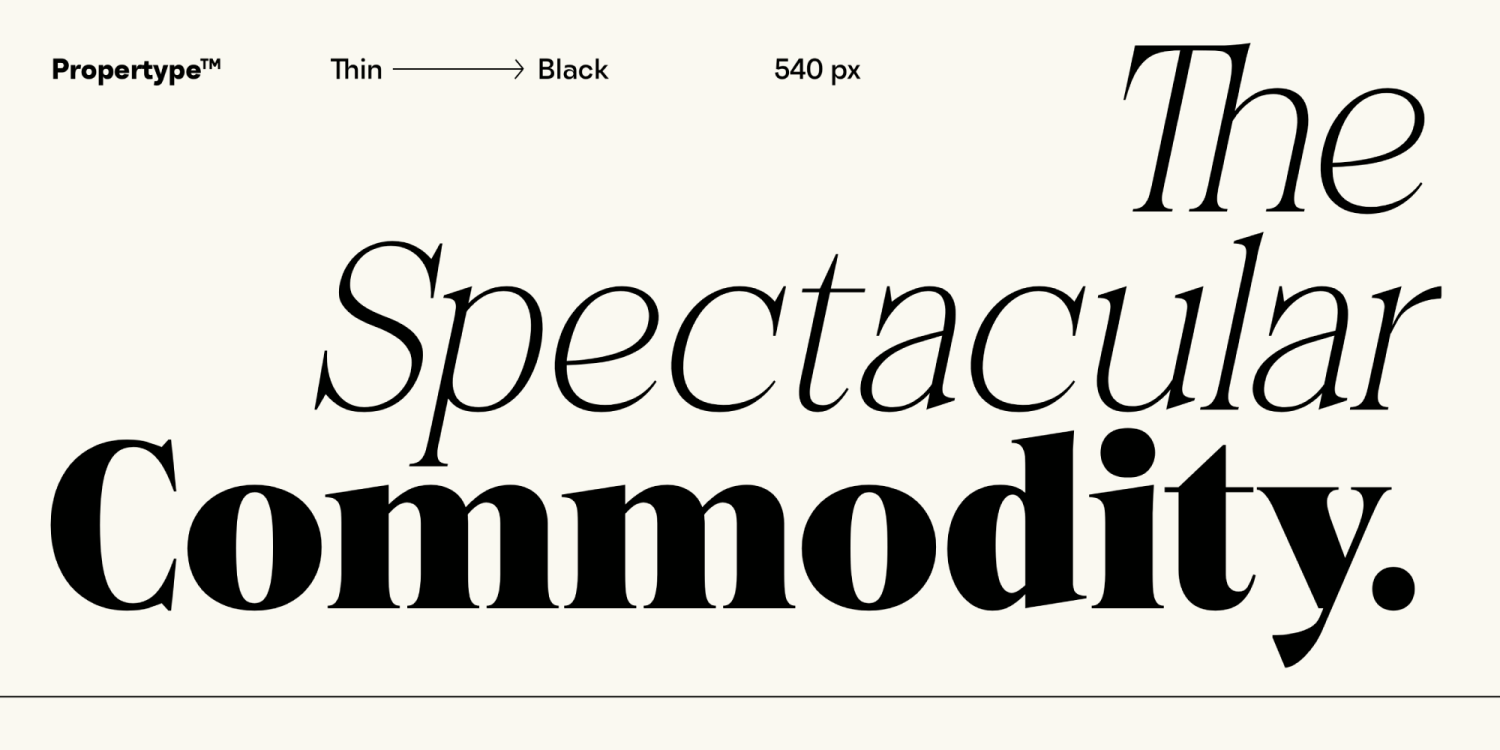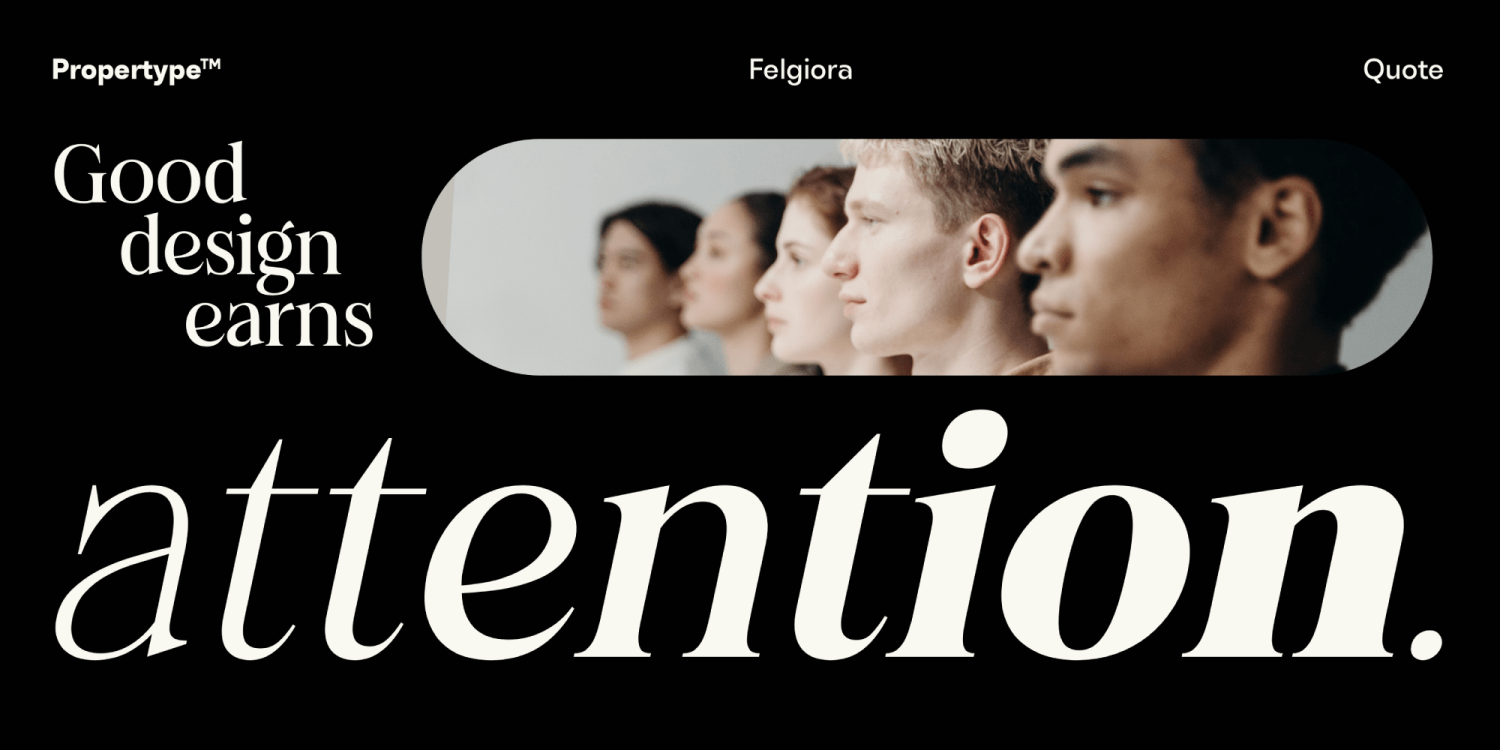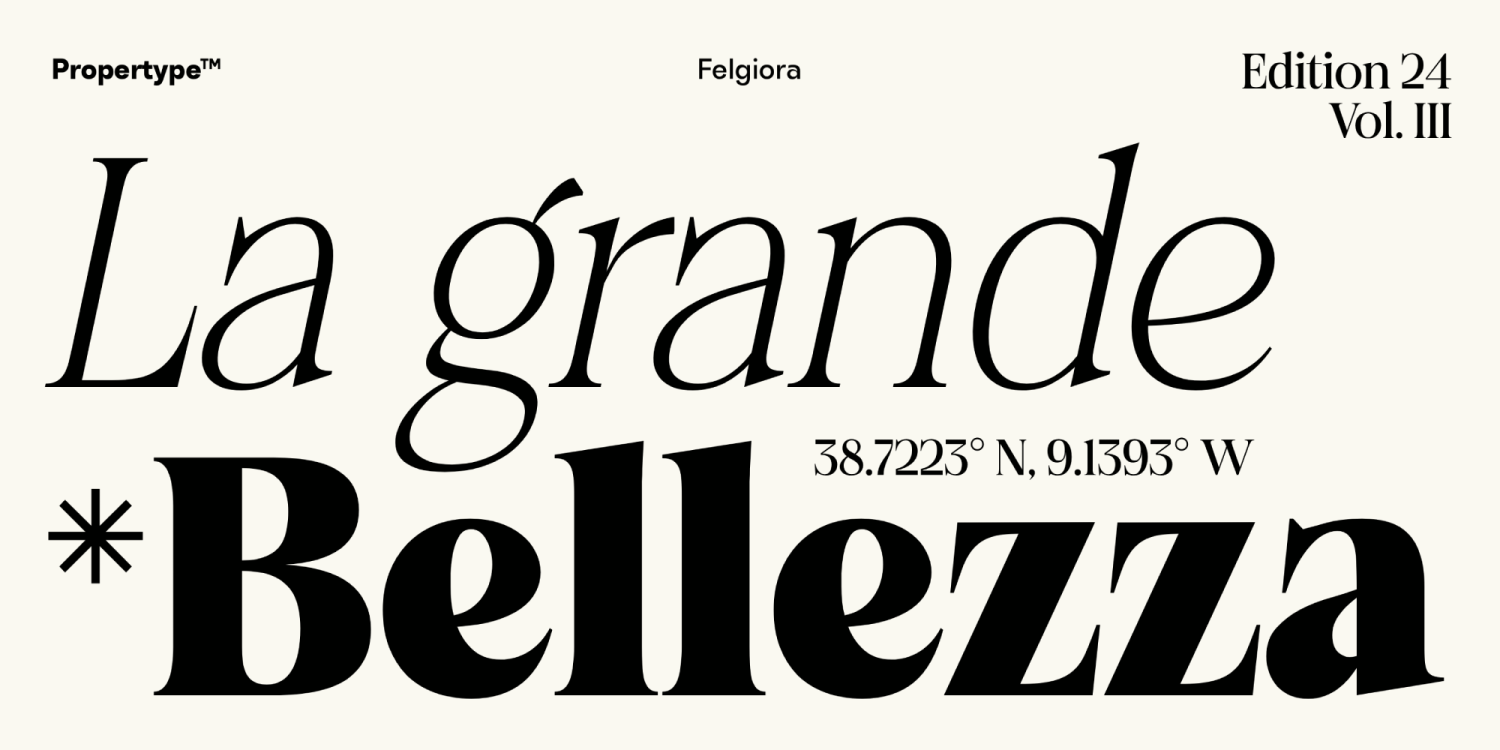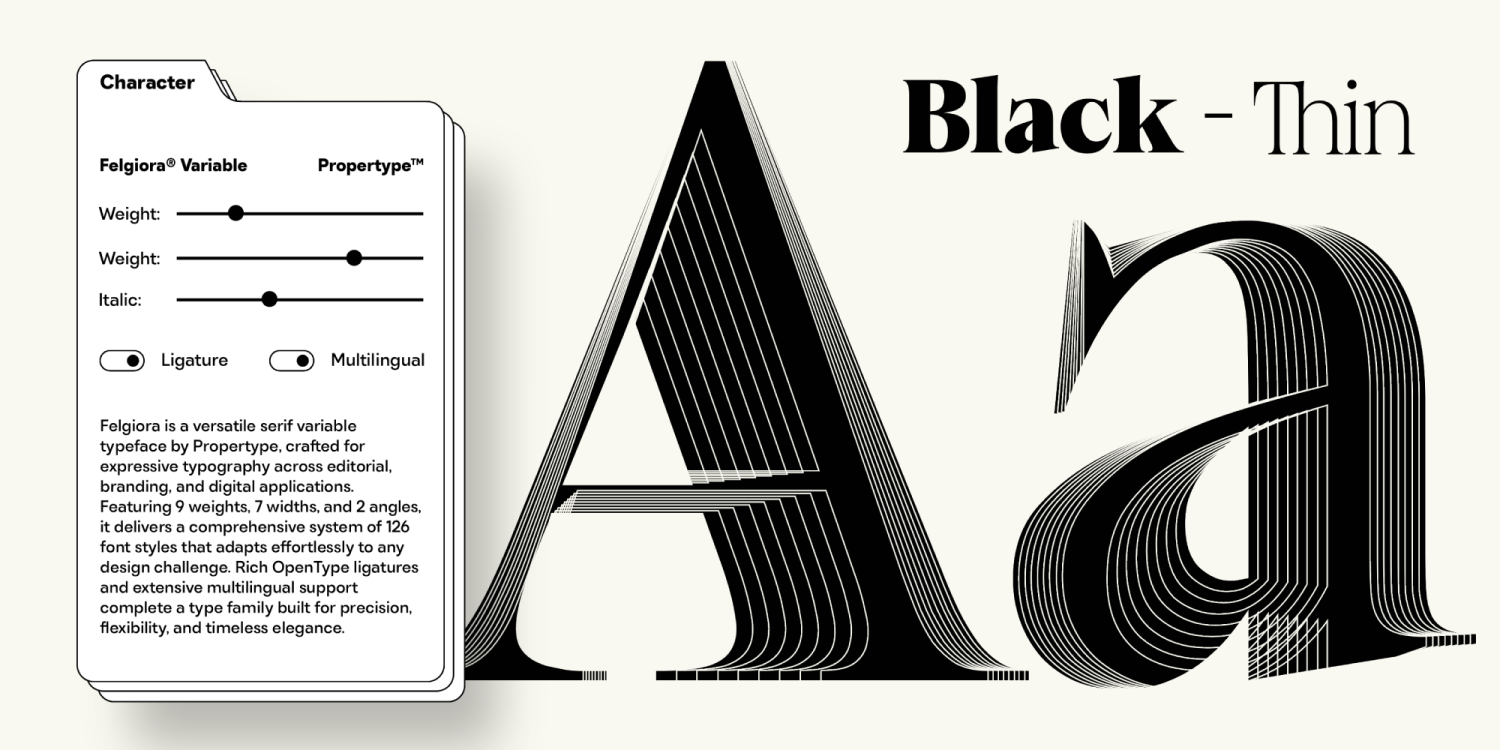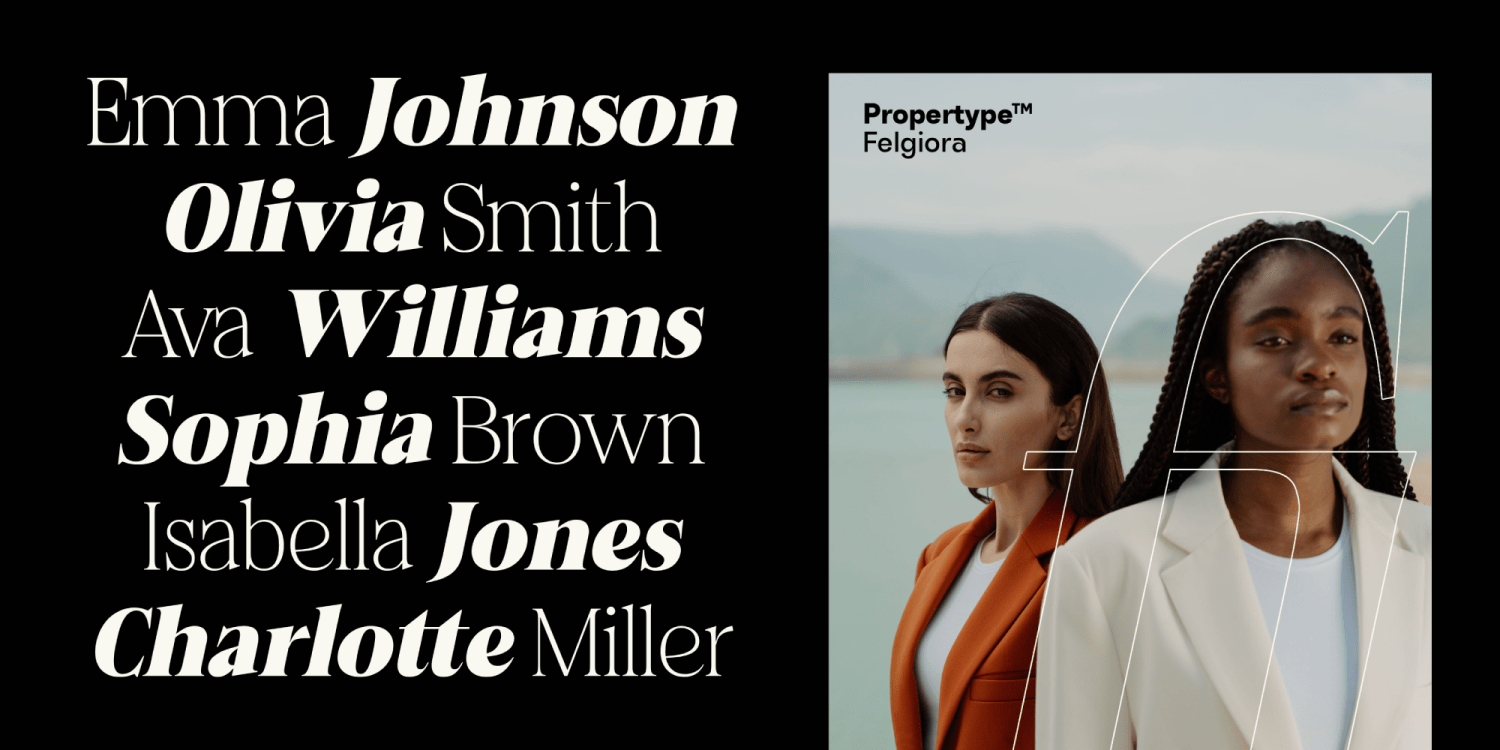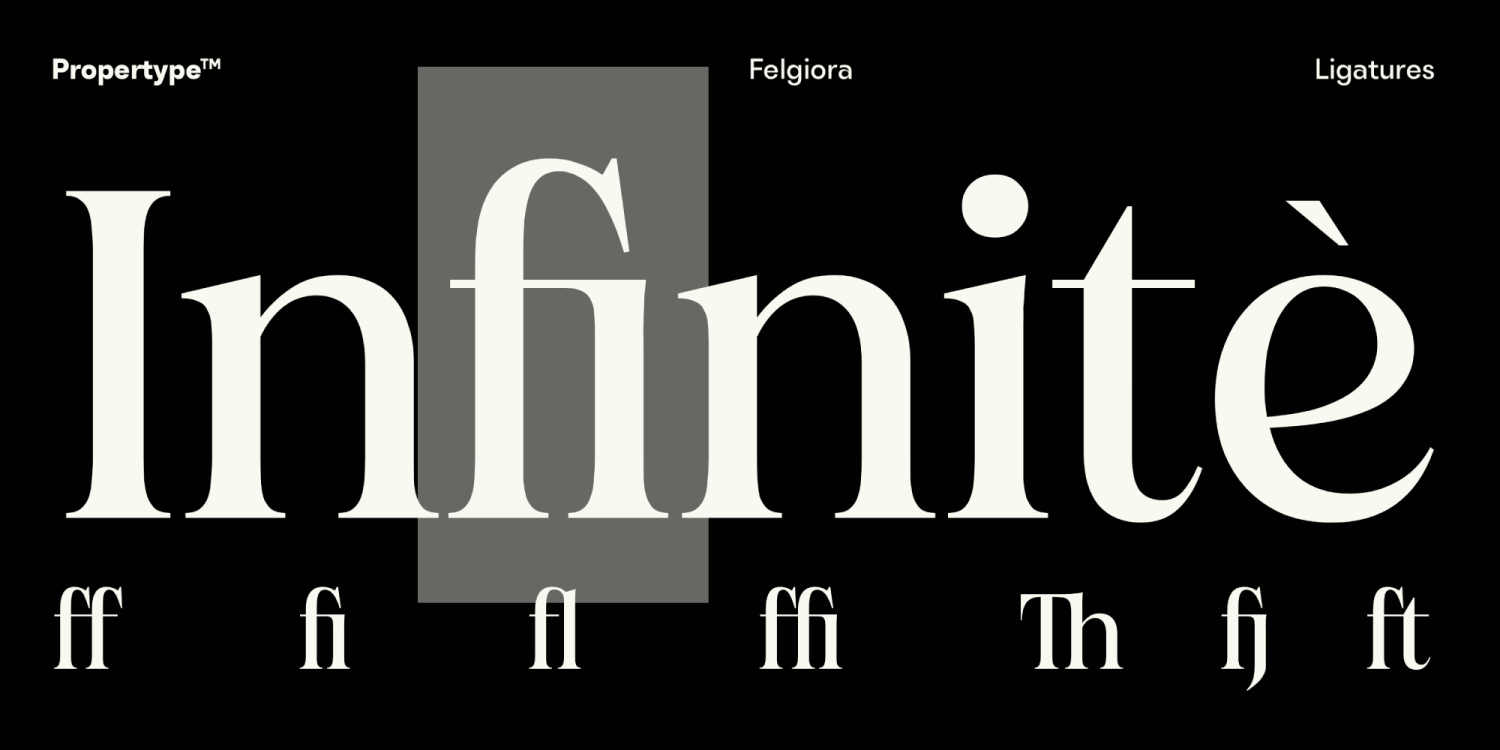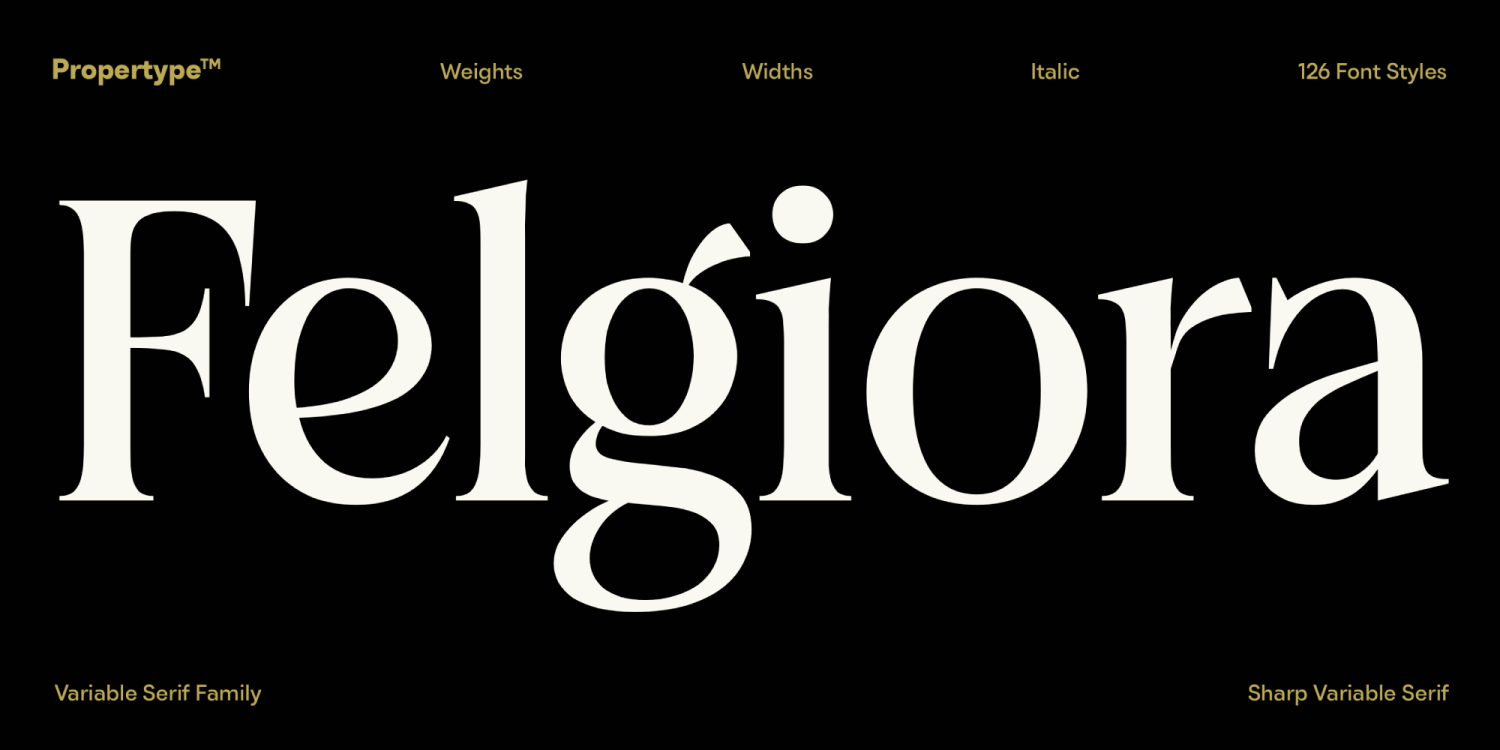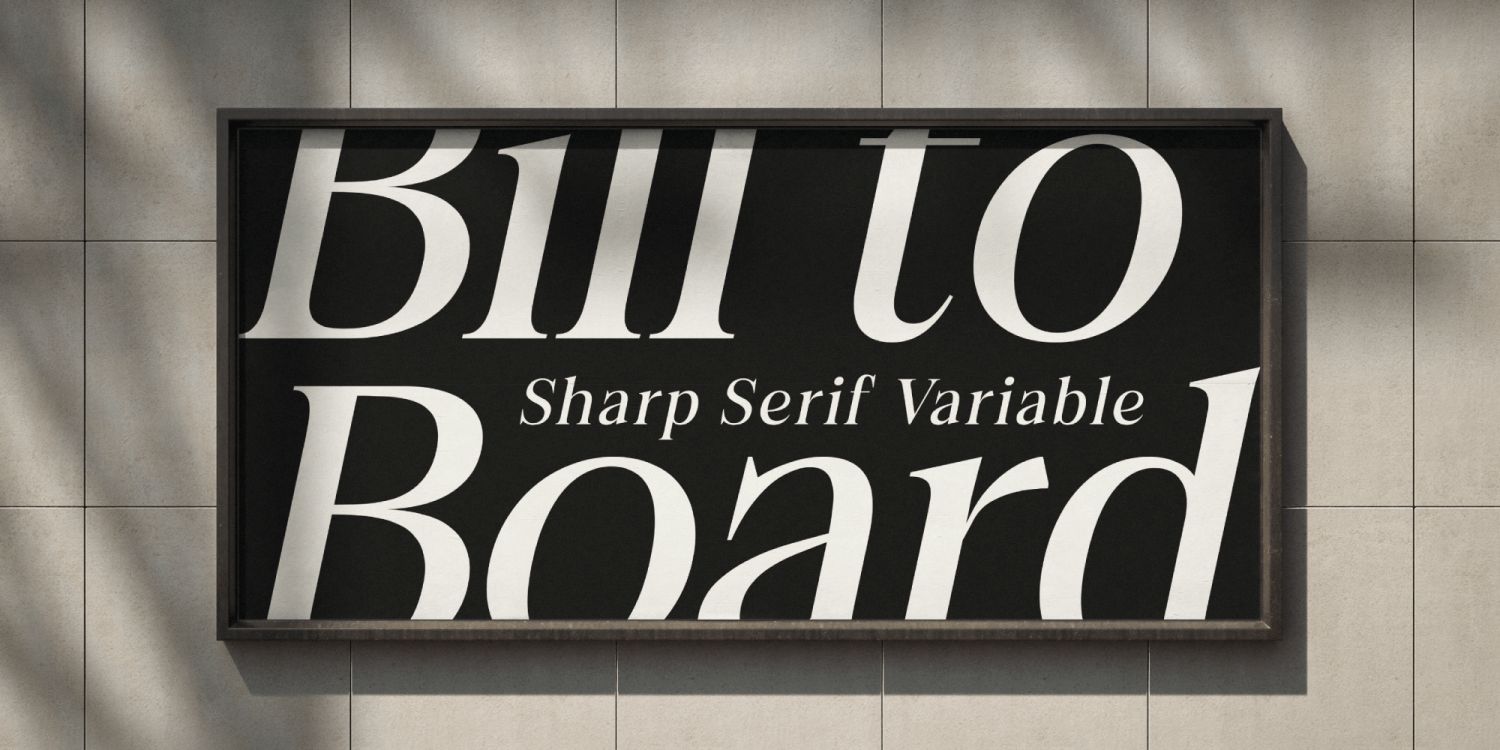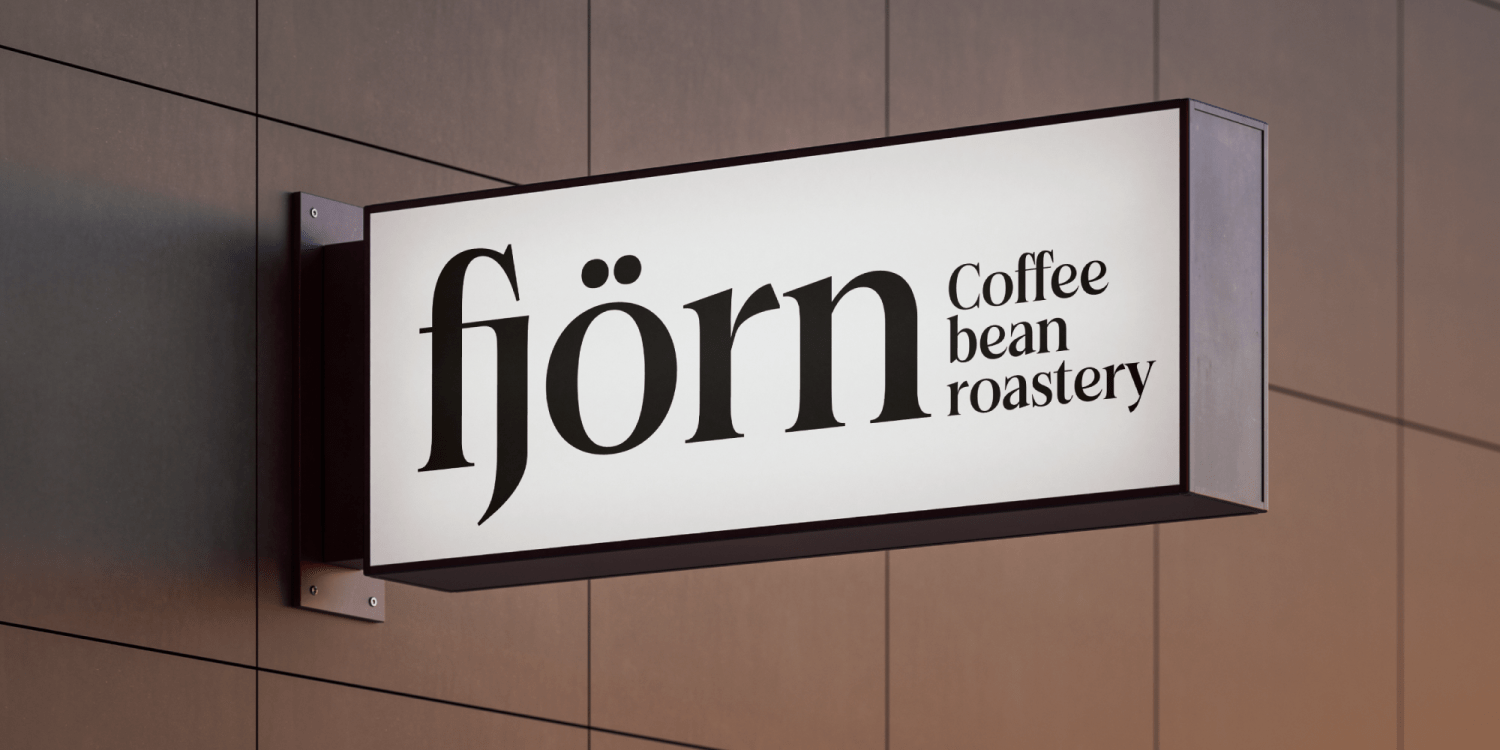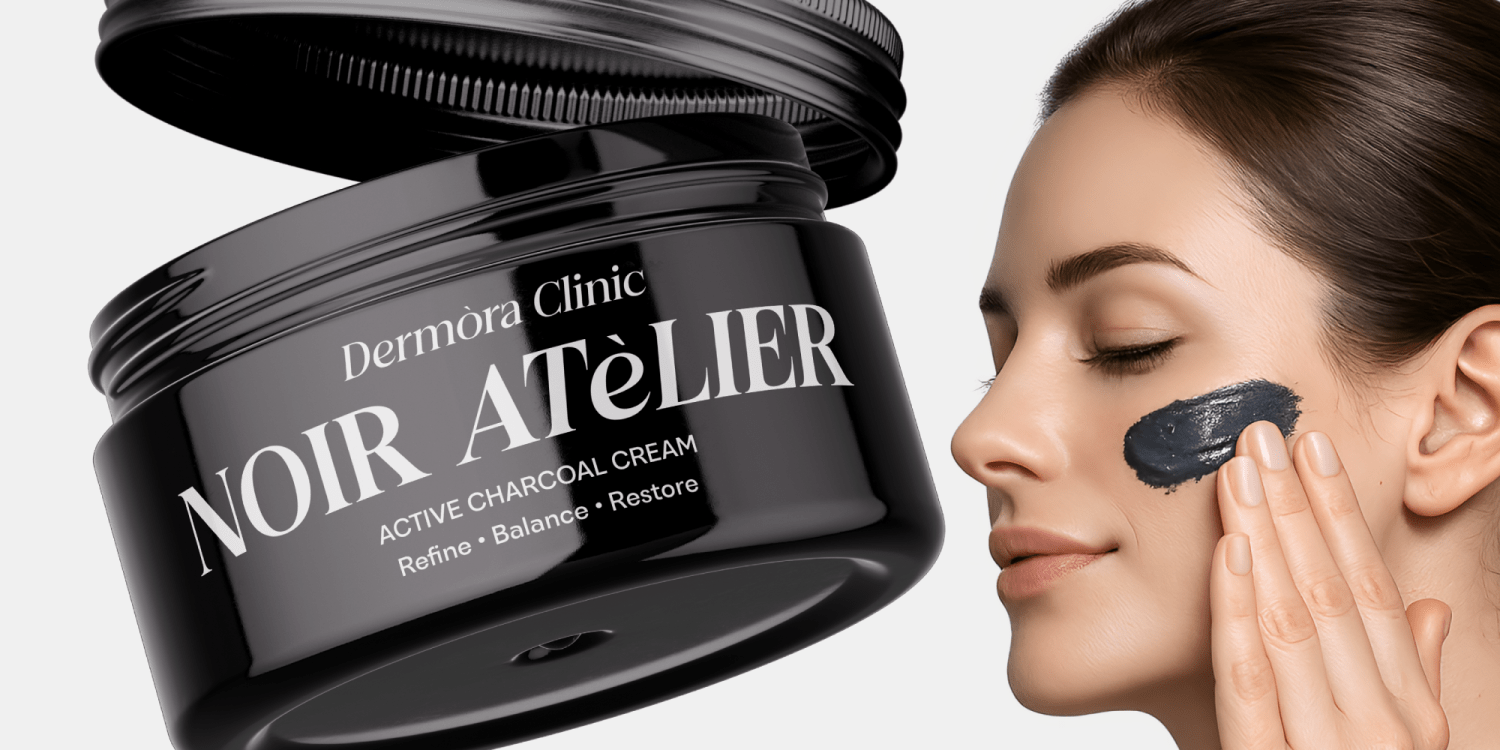
Felgiora
Felgiora is a modern variable serif typeface that blends luxury, clarity, and contemporary elegance into one highly versatile font family. Felgiora features a confident yet graceful character, making it ideal for premium and modern design applications.
Felgiora offers up to 240 styles, including both upright and italic forms. This extensive flexibility allows designers to refine typography with precision—from clean, minimalist layouts to bold, expressive statements. Balanced proportions, high legibility, and consistent rhythm work beautifully across a wide range of large display sizes and smaller text settings.
Key features:
Fully variable font for maximum flexibility. Luxurious modern serif characters. Balanced sharp and soft shapes for a premium feel. A comprehensive font family suitable for both display and text use.
Felgiora empowers designers with creative freedom and typographic consistency—one sophisticated font family for modern visual communication.